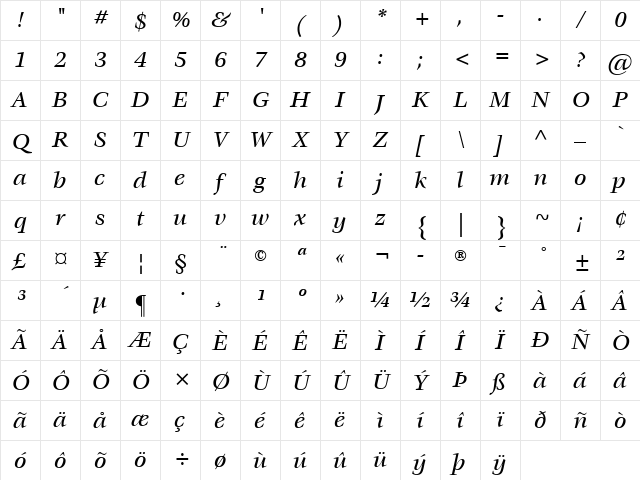
Veljovic LT Medium Italic
Design Context for Veljovic LT Medium
Veljovic LT Medium is a composed and adaptable typeface that performs quietly and consistently across a wide range of design contexts. The slanted form adds forward momentum and visual energy. Its slender proportions lend an understated elegance to any composition.
Pro Tip: Use Veljovic LT Medium for emphasis, pull quotes, and subheadings where its slanted energy can add rhythm to the layout.